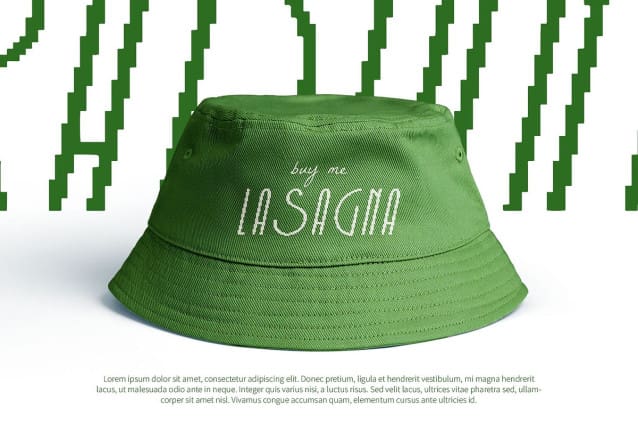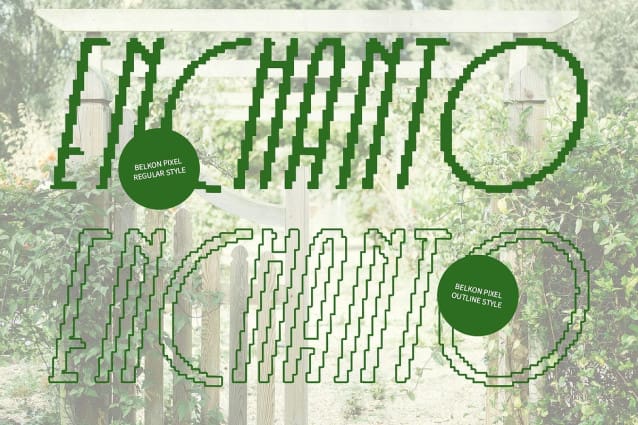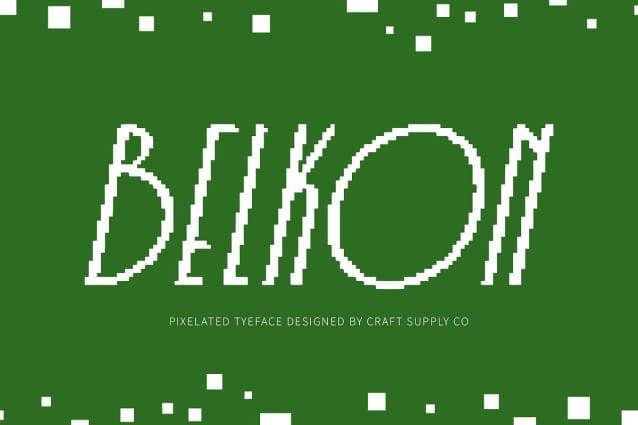
Belkon Pixel Font
Belkon Pixel Font is a modern sans-serif font that masterfully blends the geometric elegance of Art Deco with a retro, pixelated effect. Its clean, structured lines and symmetrical shapes evoke the timeless sophistication of Art Deco design, while the pixelated texture adds a unique digital twist, creating a striking fusion of old-world glamour and contemporary digital style.
Art Deco Symmetry with a Modern Twist The Art Deco influence in Belkon Pixel is evident in its strong, geometric forms and balanced proportions, reminiscent of the bold lines and sharp angles popular in the 1920s and 1930s. This classic elegance is brought into the 21st century with the pixelated effect, which infuses the font with a touch of nostalgia and modernity, making it perfect for projects that aim to marry vintage charm with a futuristic edge.
Striking and Unique Aesthetic Belkon Pixel stands out with its blend of geometric symmetry and digital effects. Its unique look works perfectly for designs aiming to create a sense of timeless style with a hint of modern technology. The pixelated effect adds texture and depth, making it perfect for digital art, promotional materials, and brand campaigns that want to stand out with elegance and innovation.